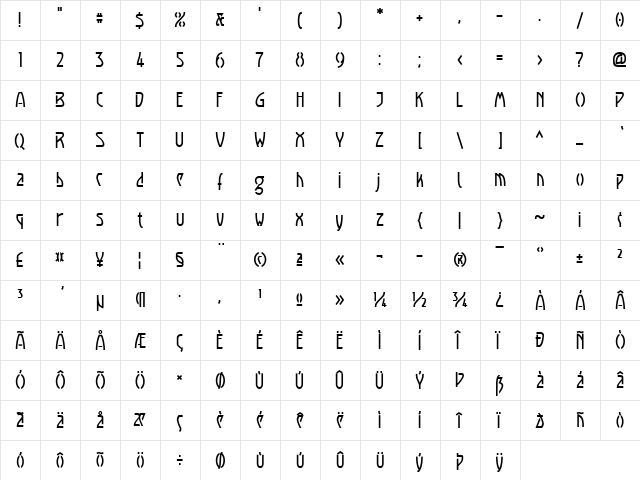
Luxembourg 1910 Regular
| Foundry | Peter Wiegel |
| Designer | Peter Wiegel |
Design Context for Luxembourg 1910 Typeface
Luxembourg 1910 is a composed and adaptable typeface that performs quietly and consistently across a wide range of design contexts.